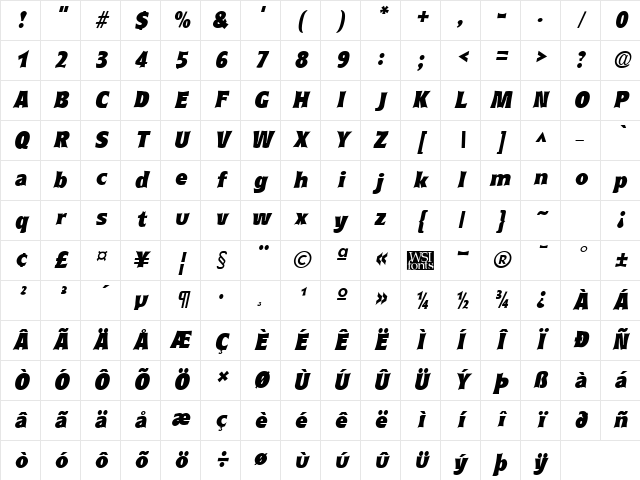
CurvacBlack Italic
Design Context for CurvacBlack
CurvacBlack is a composed and adaptable typeface that performs quietly and consistently across a wide range of design contexts. The slanted form adds forward momentum and visual energy.
Pro Tip: Use CurvacBlack for emphasis, pull quotes, and subheadings where its slanted energy can add rhythm to the layout.